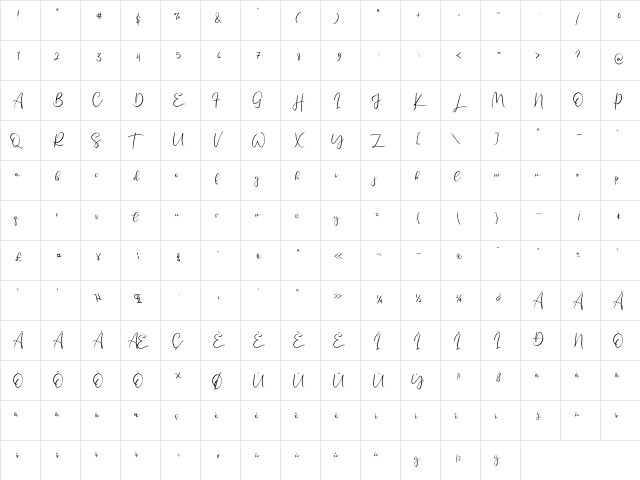
Single Signature Thin Ordinary Regular
Design Context for Single Signature Thin Ordinary Typeface
Single Signature Thin Ordinary takes a measured approach to typography — its balanced proportions and neutral character make it a reliable workhorse for both digital and print work. The delicate stroke weight brings airiness and refinement to layouts.